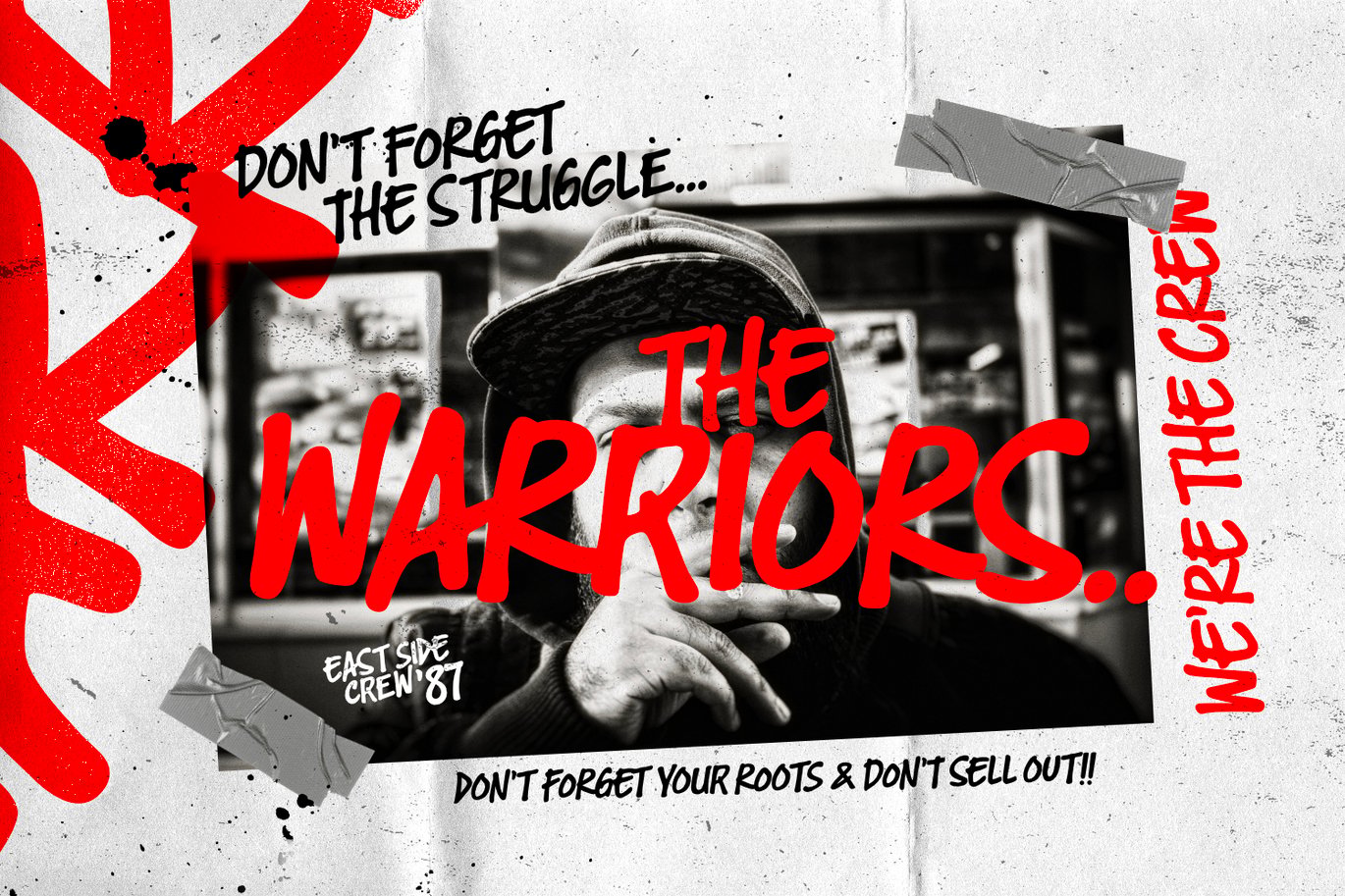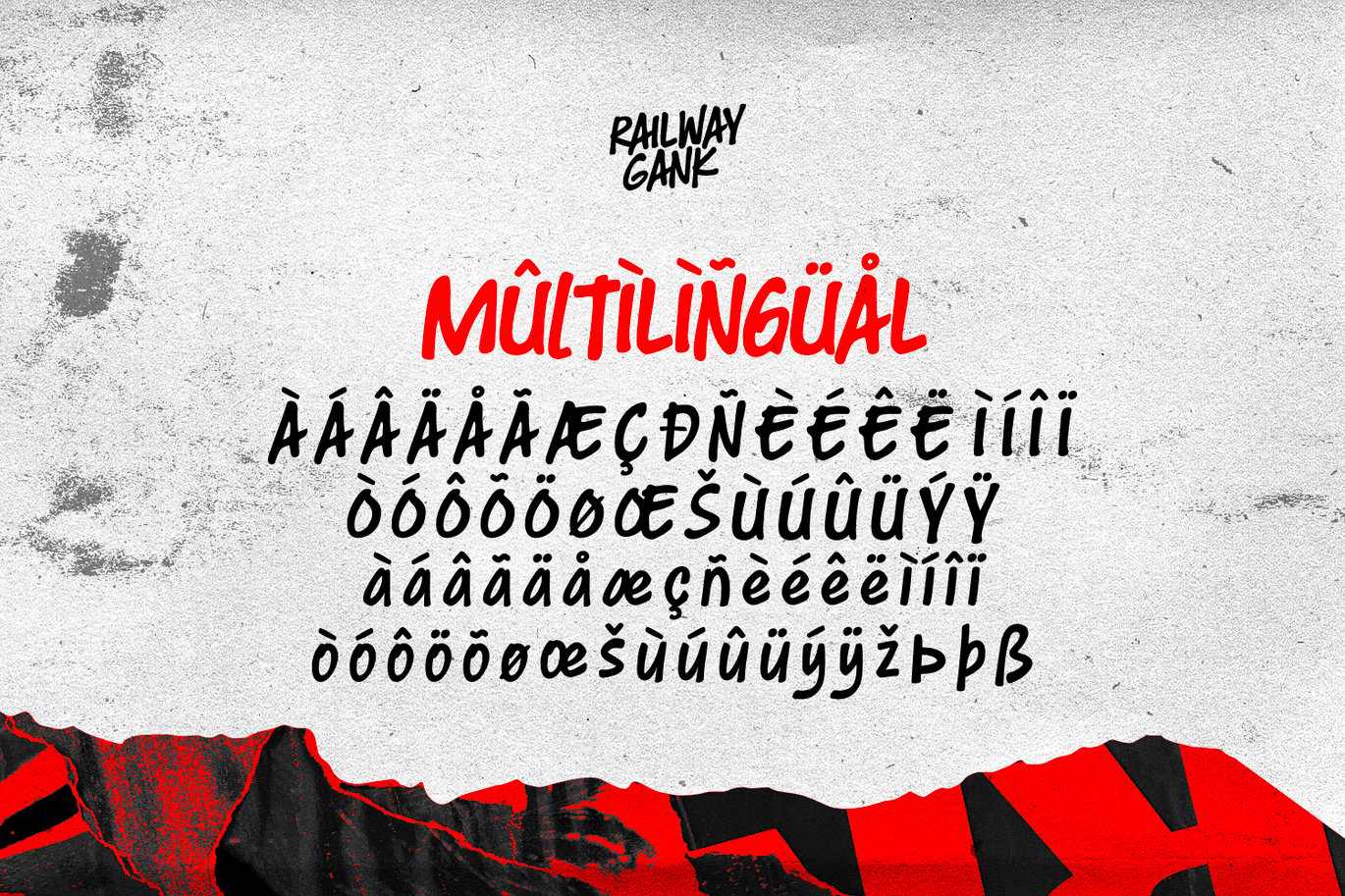
Railway Gank – Street Marker Font
Railway Gank looks like it was written with a thick marker that was running out of ink. Ikiiko drew it with fast, slanted strokes and dry, broken edges, and the letters lean and bounce like real street tags. The specimens place it on concrete walls with barbed wire and spray paint, and on a gritty “The Warriors” crew poster.
Ikiiko includes uppercase and lowercase, numbers, punctuation, alternates and multilingual characters, 233 glyphs in total. Mixing upper and lowercase gives it a more natural, hand-written rhythm. The free files here come as TTF and OTF.
Best uses for Railway Gank
• Streetwear and skate brand graphics
• Hip-hop and punk album covers
• Gig posters and flyers
• YouTube thumbnails and stream graphics
• Sticker and zine designs
Railway Gank works with blunt, plain partners. Bebas Neue gives strong, condensed headlines. Oswald works for dates and details. For a typewritten contrast, try Special Elite.
Railway Gank – Street Marker Font
Railway Gank – Street Marker Font FAQ
What free graffiti font is similar to Railway Gank?
Permanent Marker and Rock Salt are open-licence fonts with a rough, hand-drawn marker look.
How can I make Railway Gank look more like real graffiti?
Mix uppercase and lowercase, switch in a few alternates from the Glyphs panel, and add a spray or drip texture behind the text, as the specimen does.